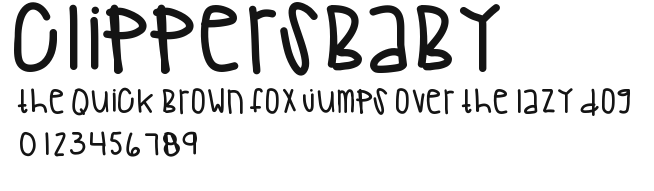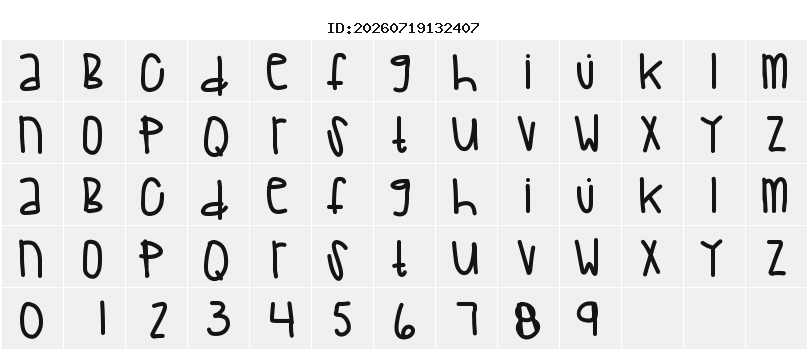
ClippersBaby Preview
About ClippersBaby.ttf
ClippersBaby.ttf is a modern, elegant sans-serif font designed for ultimate readability and visual harmony. Perfect for branding, headlines, web design, and print materials.